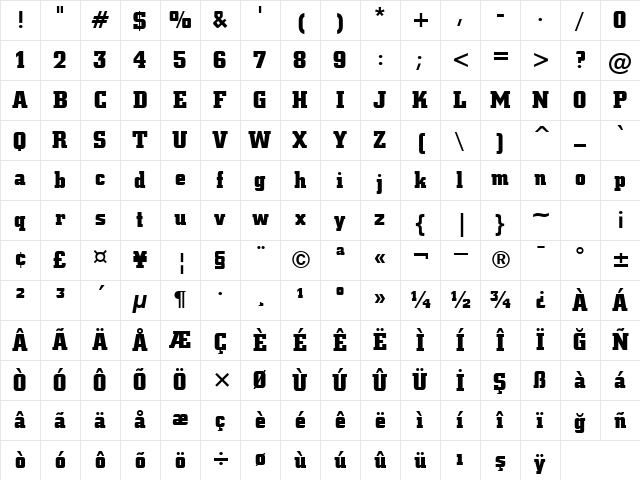
00414 Regular
Design Context for 00414
00414 is a composed and adaptable typeface that performs quietly and consistently across a wide range of design contexts.